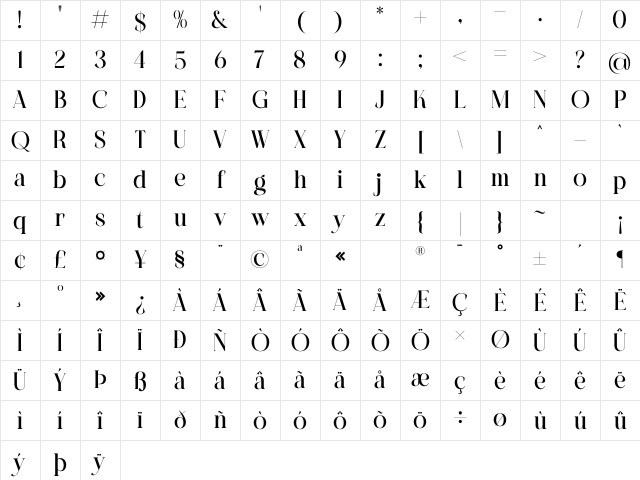
CHELON Regular
Design Context for CHELON
CHELON is a composed and adaptable typeface that performs quietly and consistently across a wide range of design contexts.